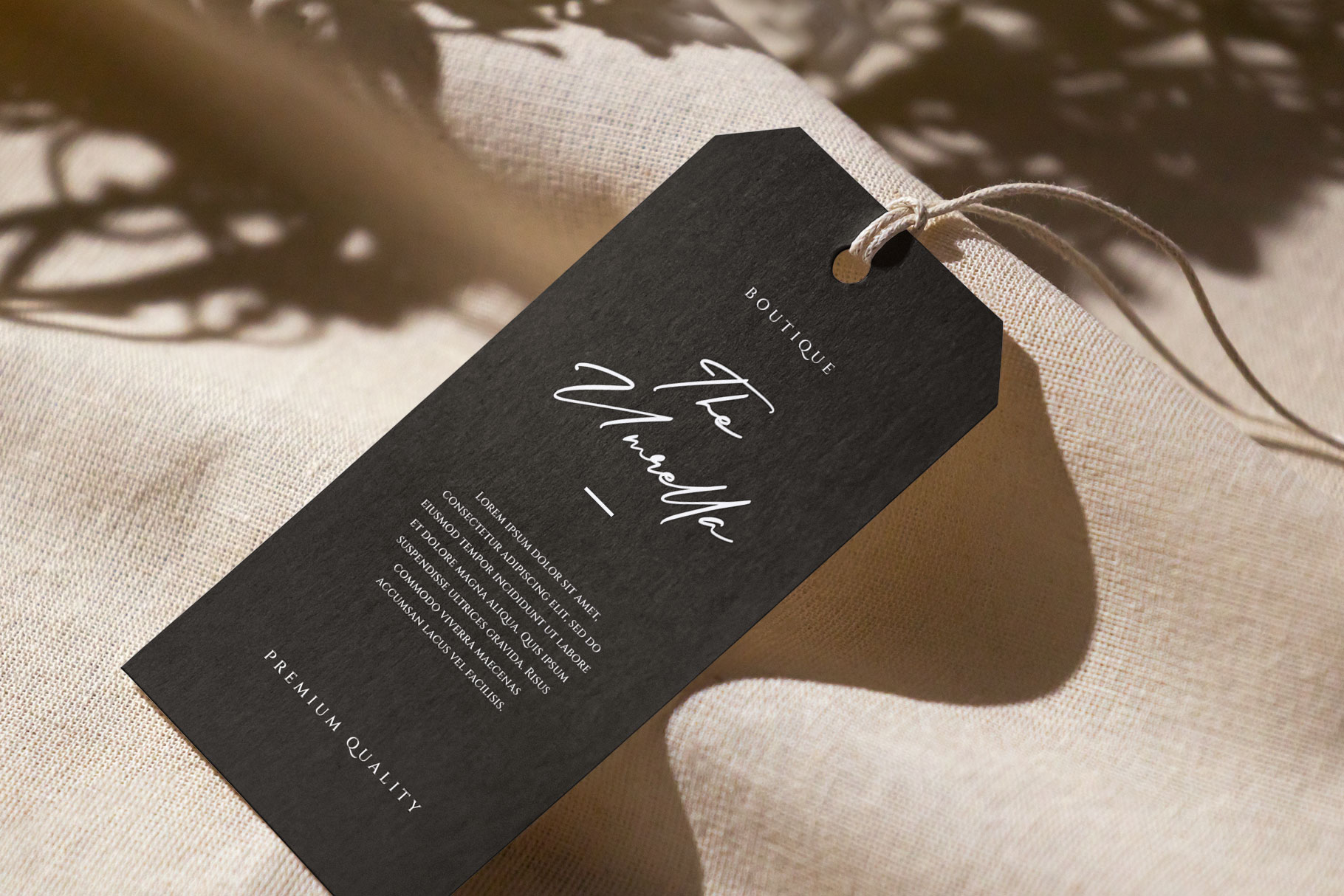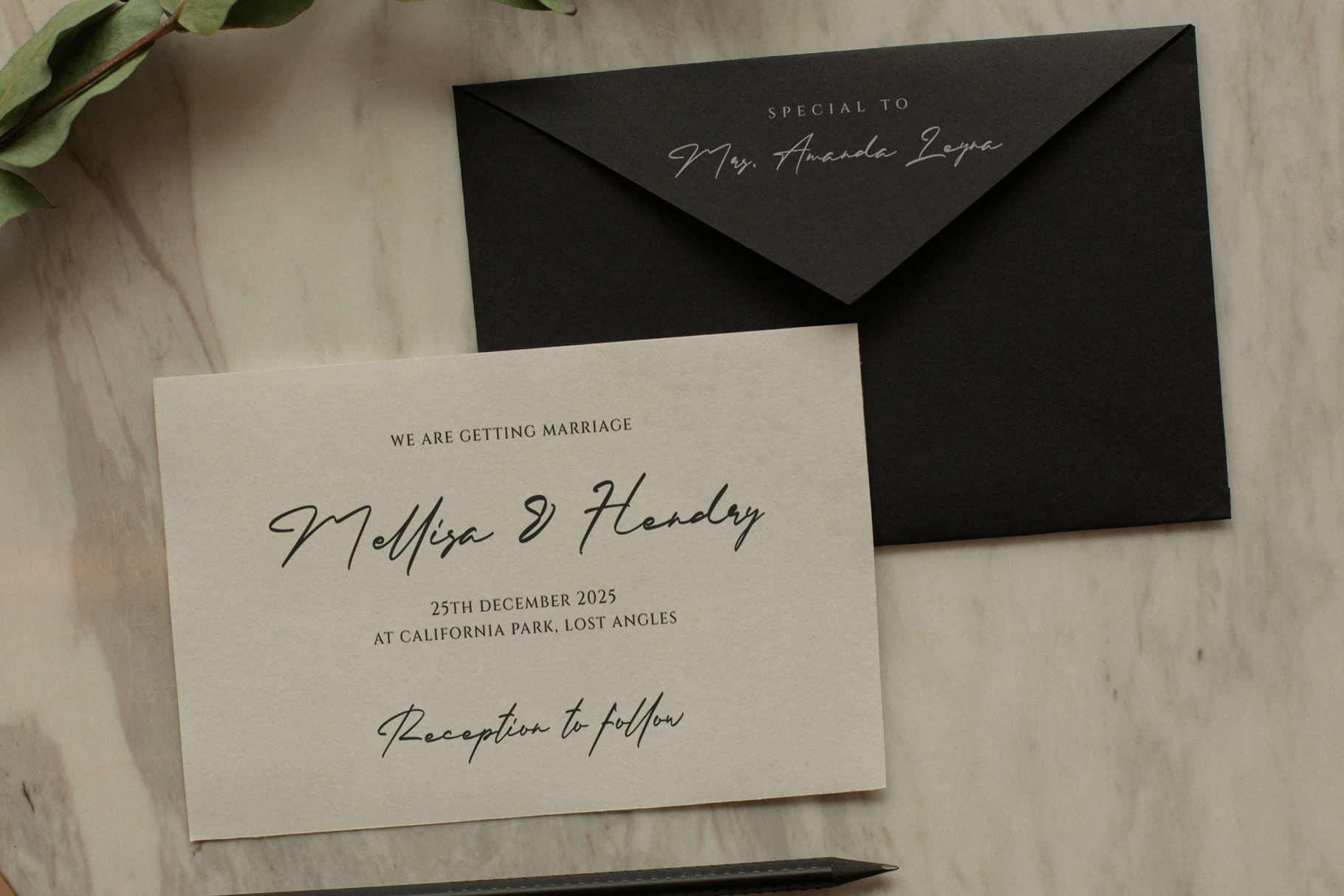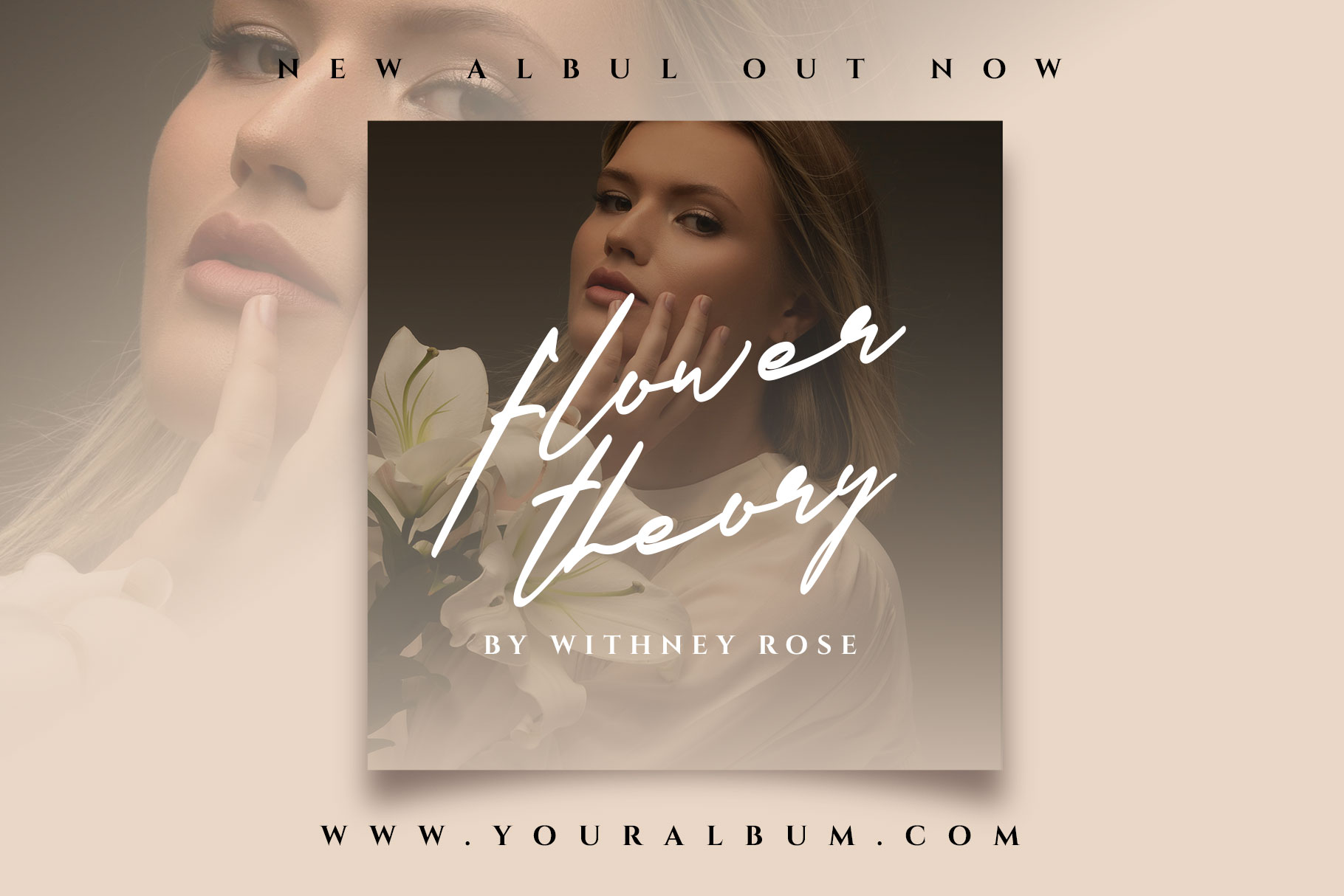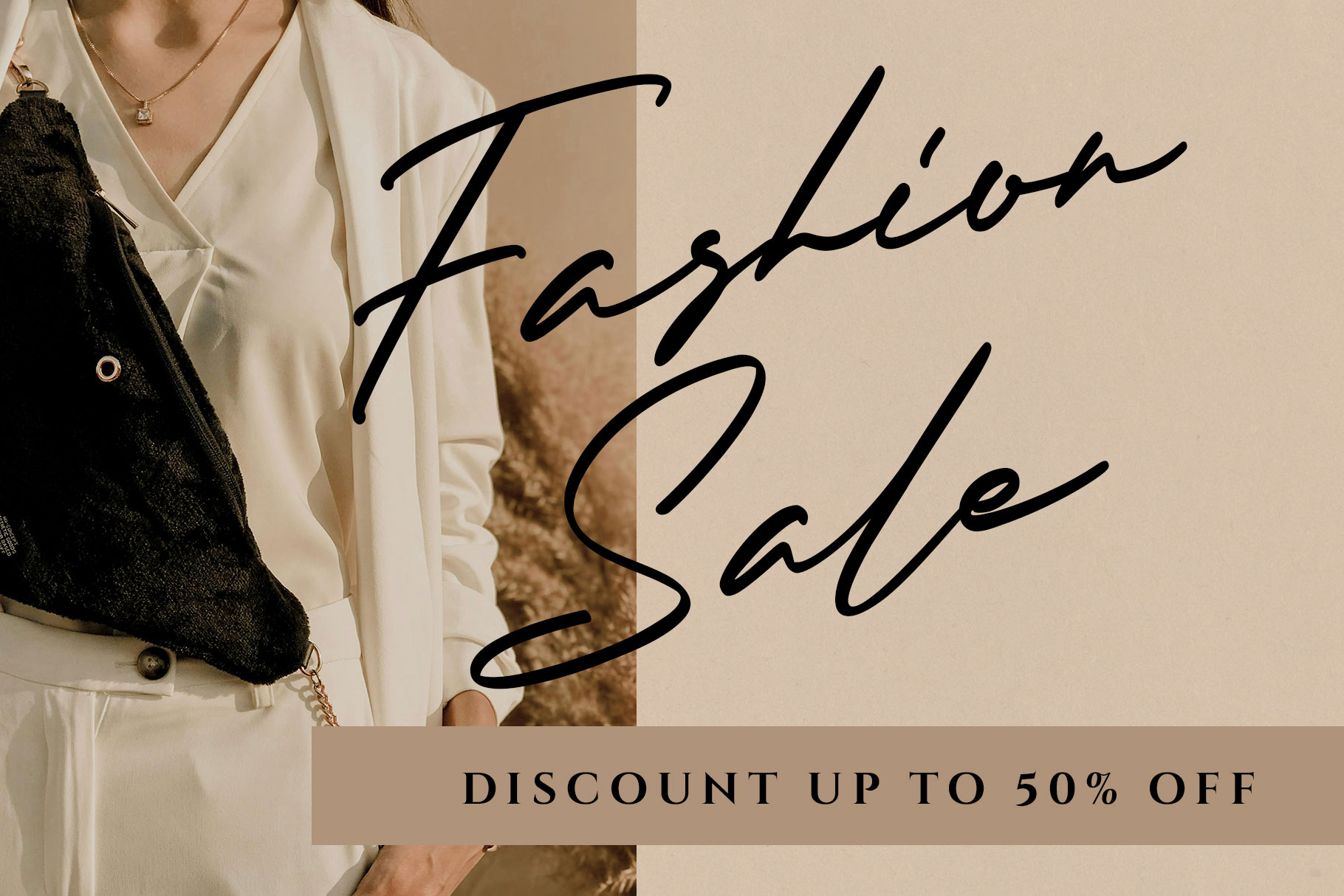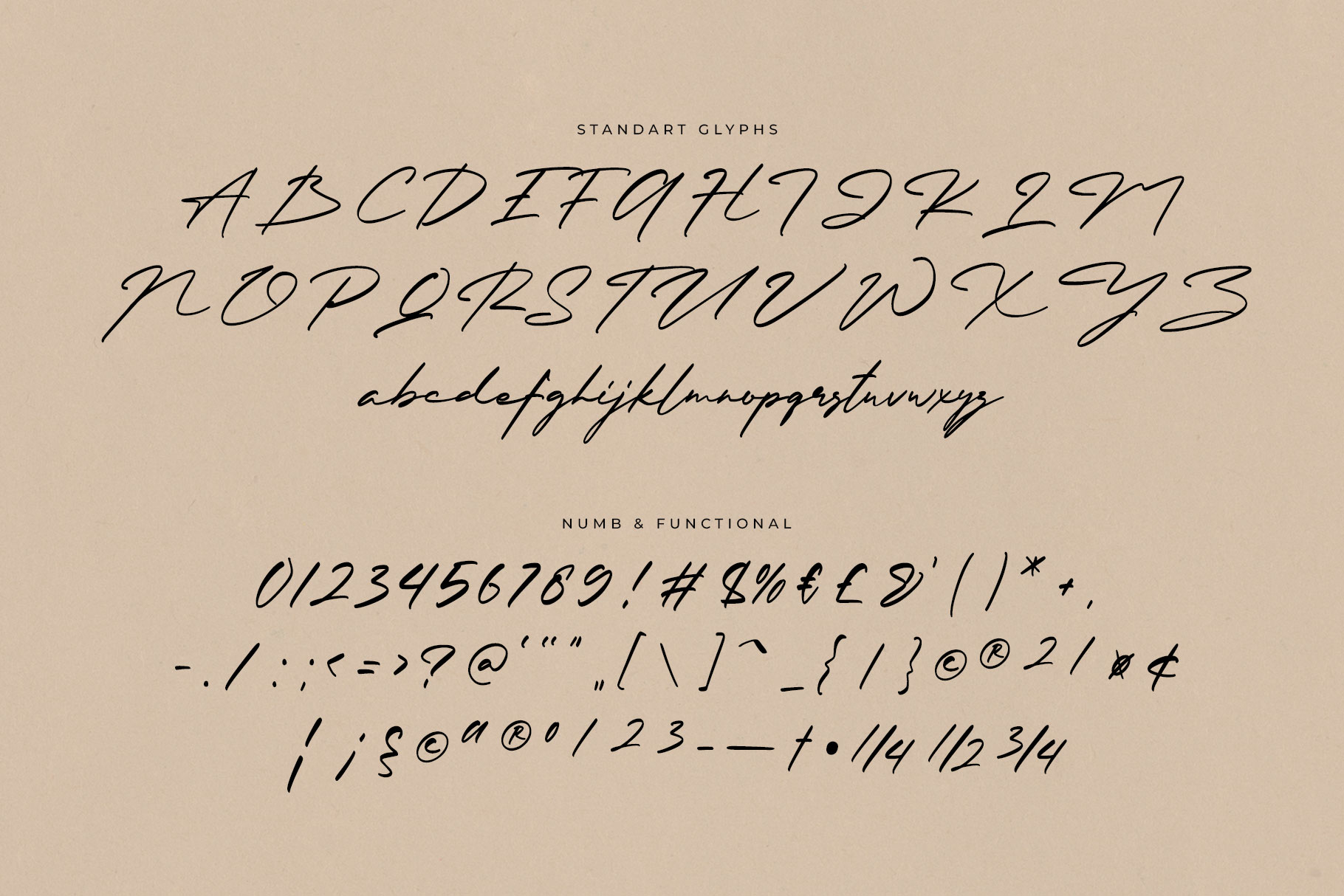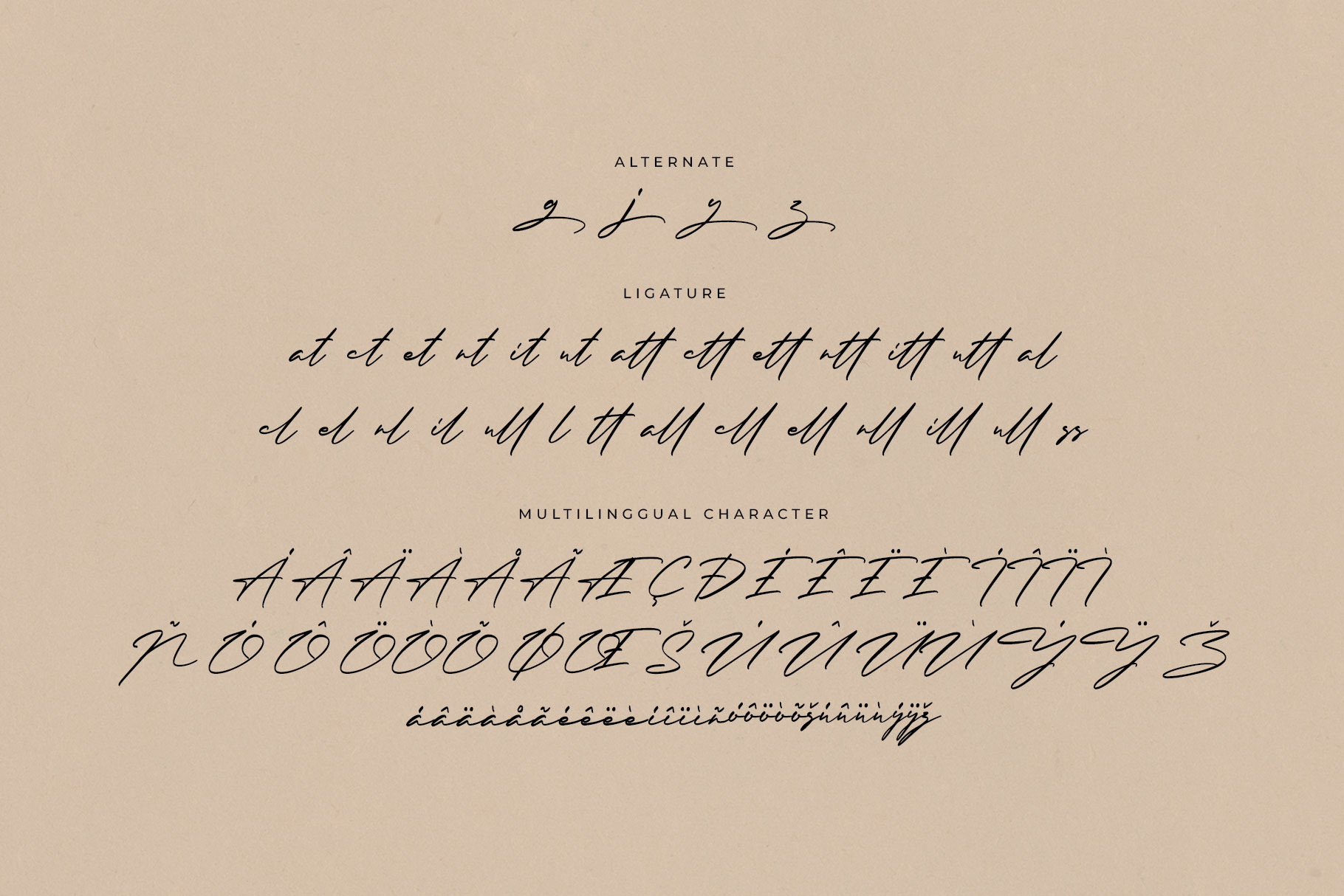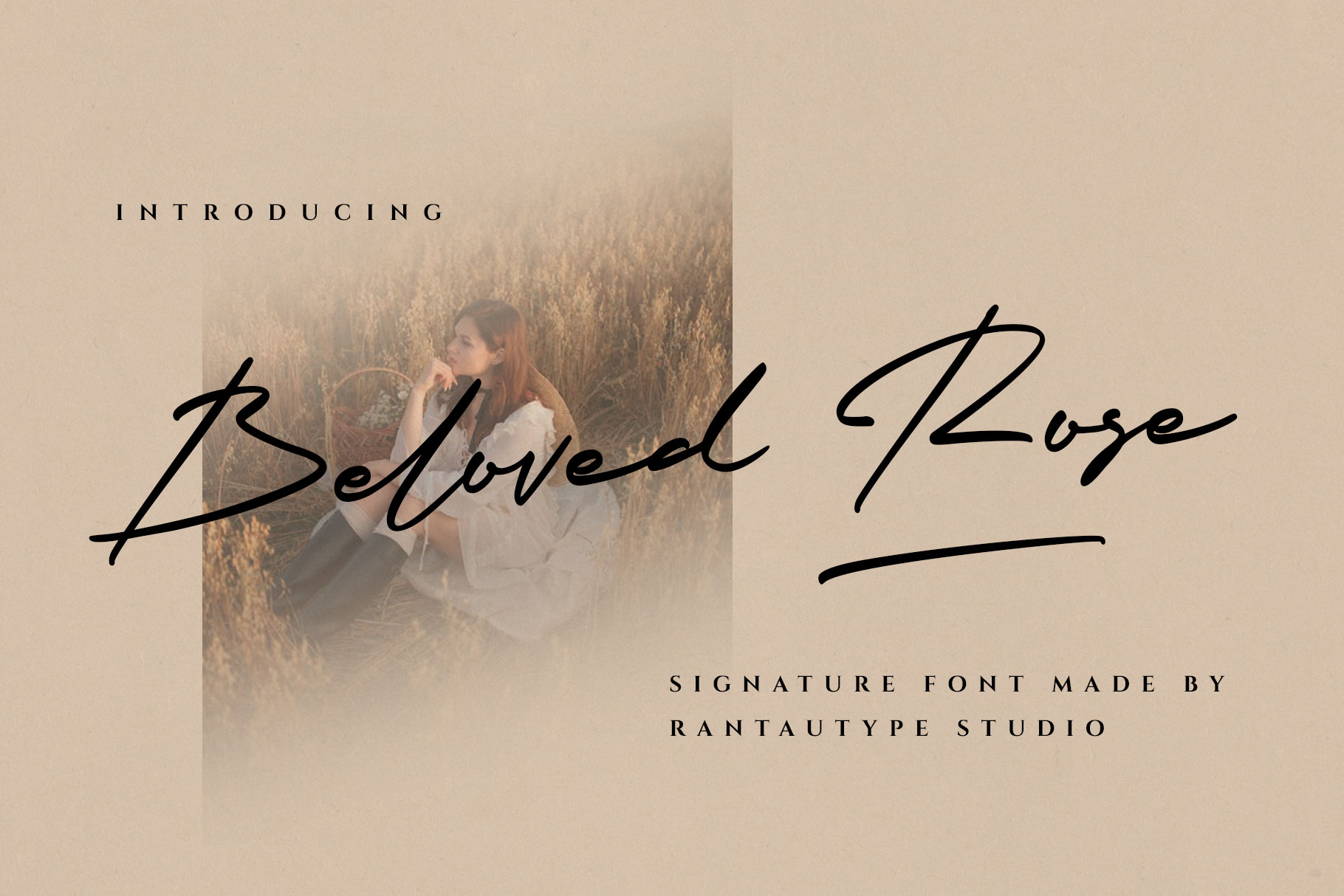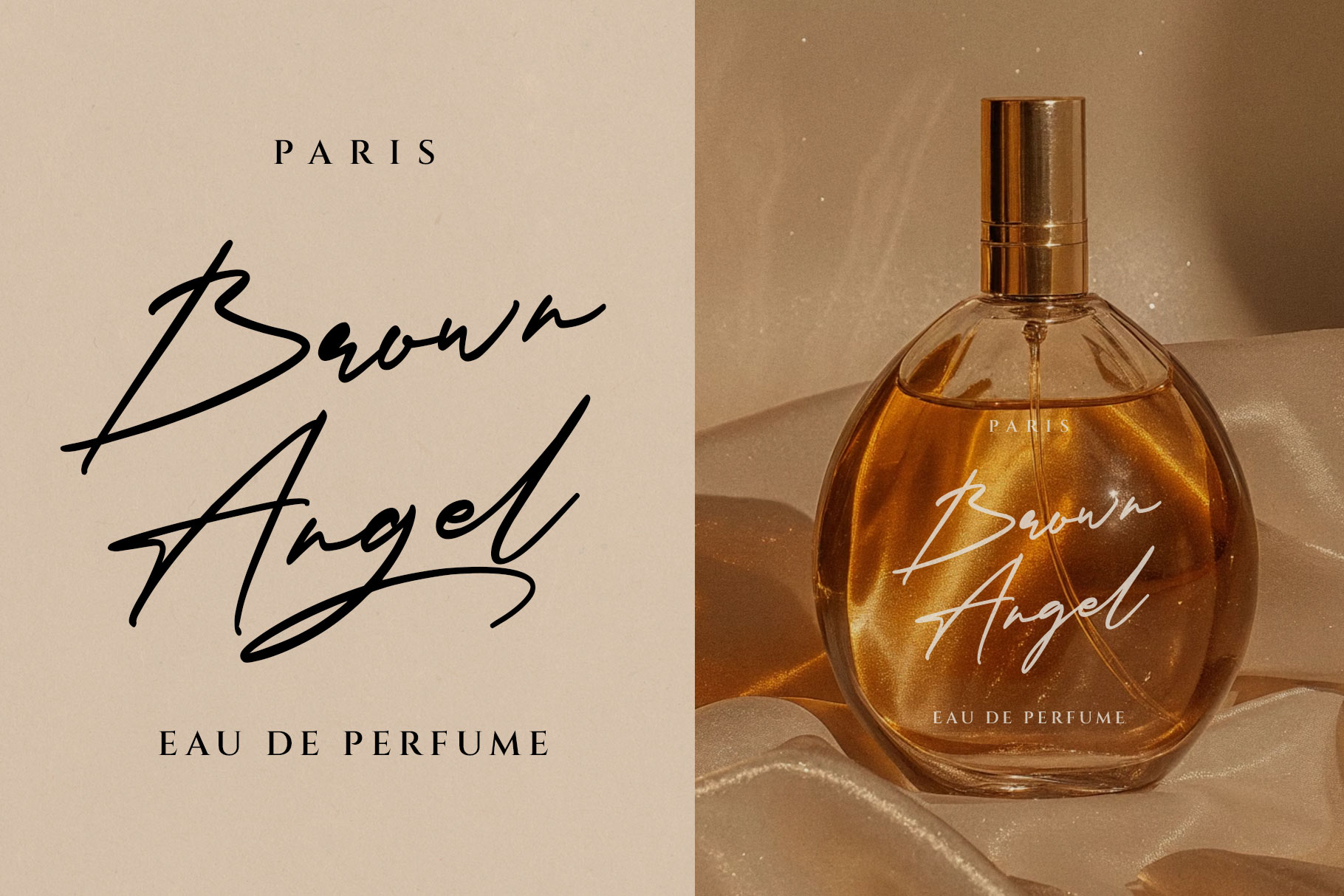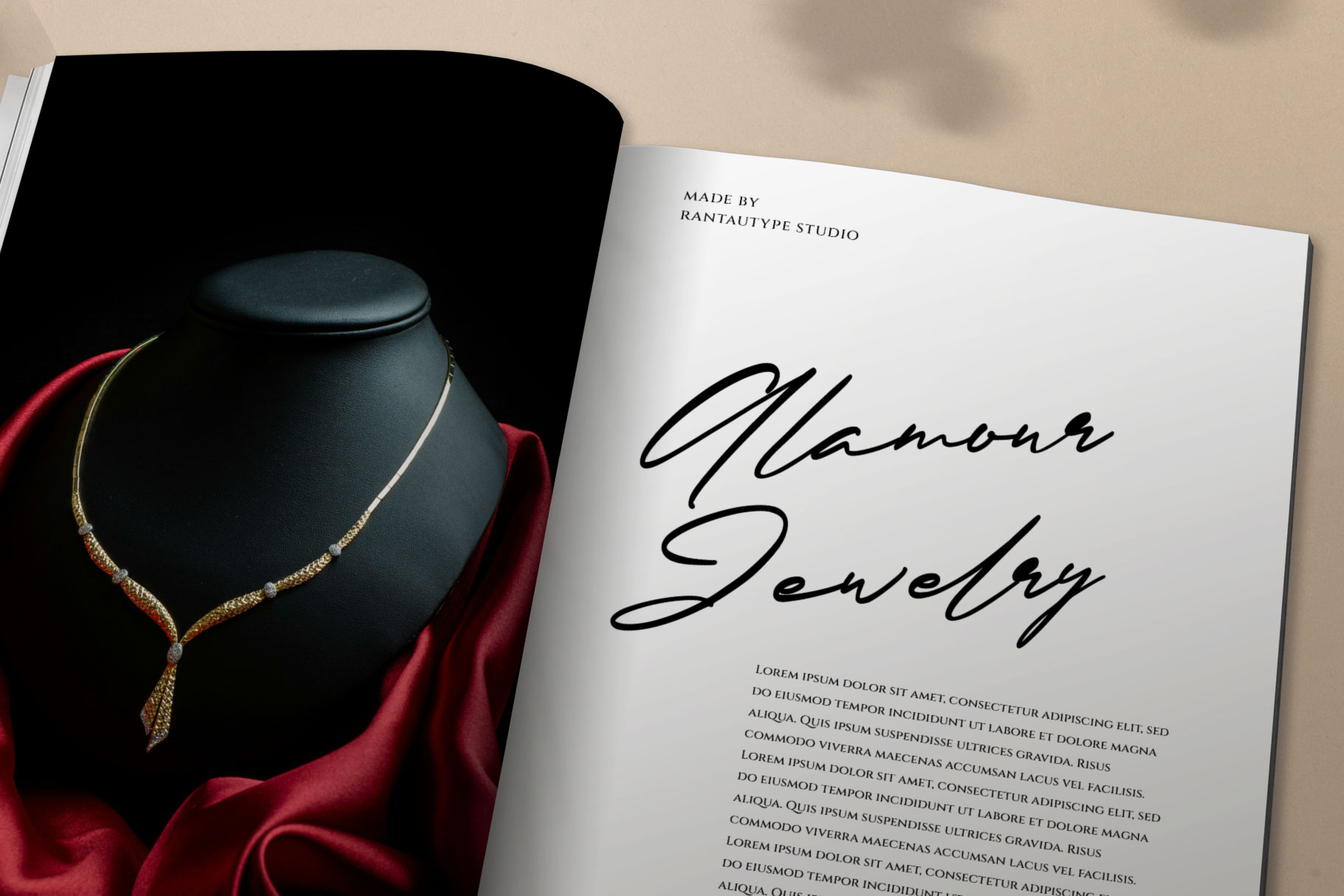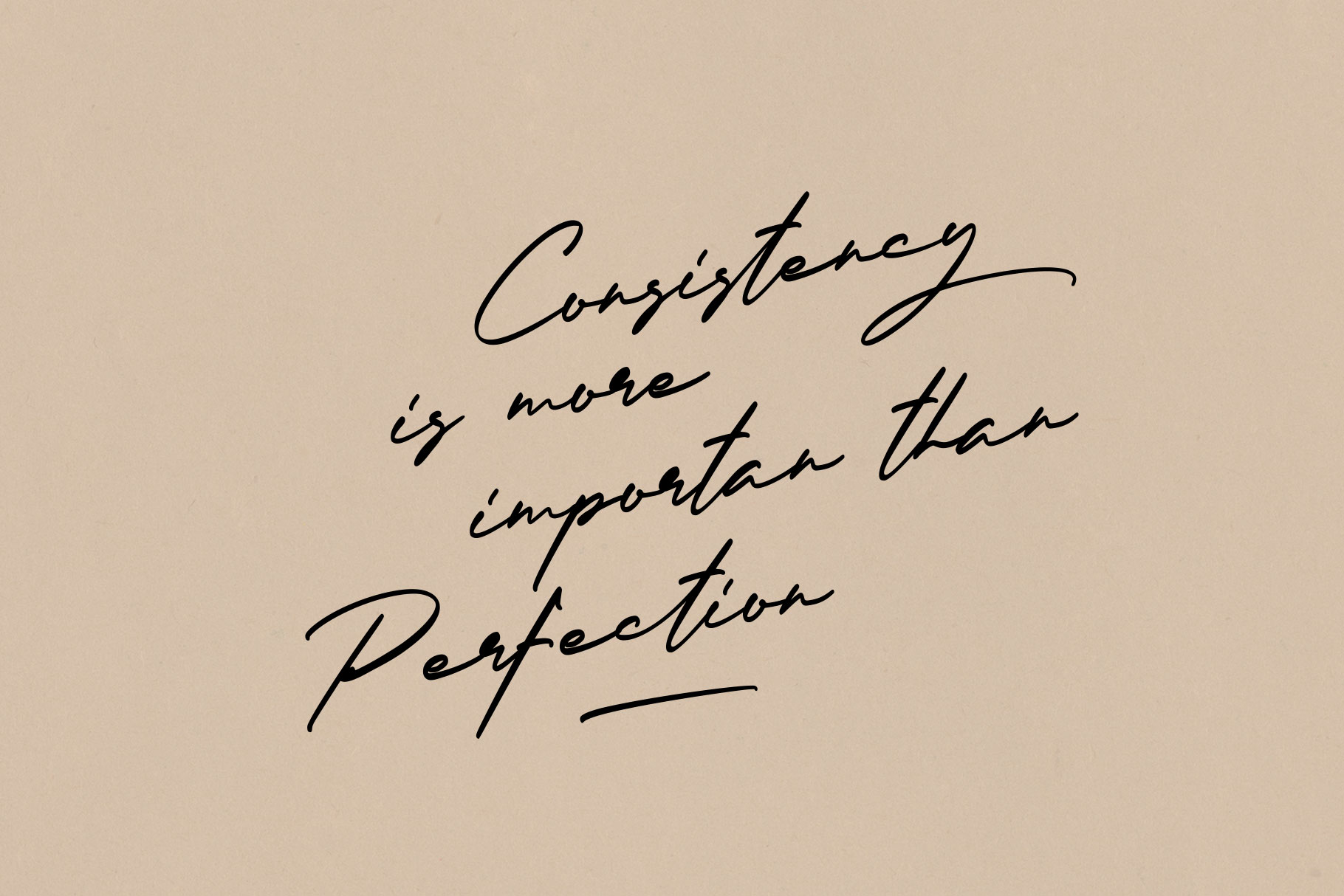
Beloved Rose Signature Font
Beloved Rose is Signature font made by rantautype studi with elegant look. Beloved Rose is a perfectly choice for any creative endeavor, creating, modern, lifestyle design such as logotype, title, cover, branding, invitations, wedding designs, display and magazine, social media posts, advertisements, printed quotes, product packaging, corporate brand, product designs, labels, photography, watermarks, special events and any other project with modern touch.